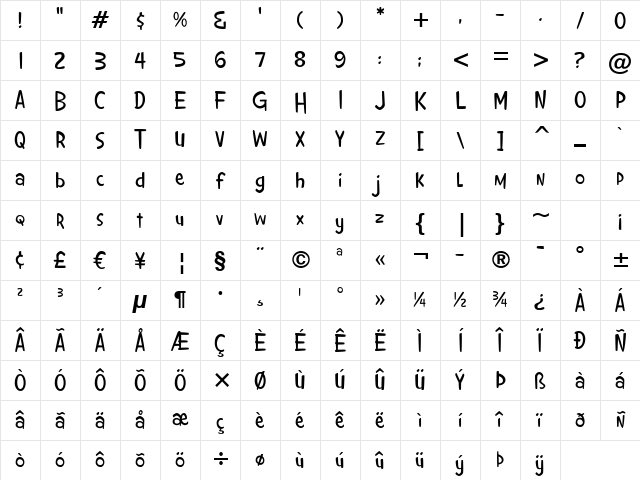
Giggles BTN Lt Regular Free Font
Giggles BTN Lt Regular
Design Context for Giggles BTN Lt
Giggles BTN Lt is a composed and adaptable typeface that performs quietly and consistently across a wide range of design contexts. Its slender proportions lend an understated elegance to any composition.